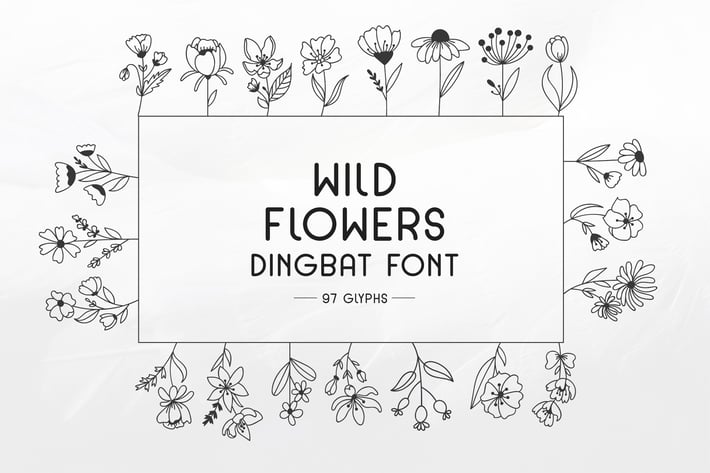
Wild Flowers Dingbat Font
Hand Drawn Flora Dingbat font with 97 flower glyphs - inspired from wild flowers, can be used for decoration, invitations, cover books and more.
Included total 97 glyphs, upper case, lower case, numbers, punctuation and symbols.